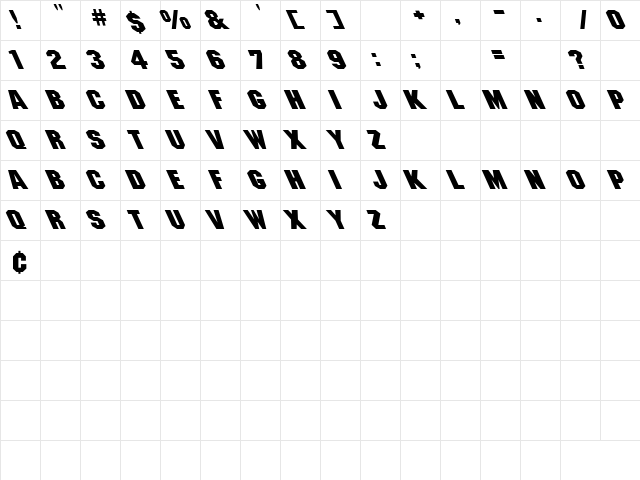
Machiavelli Bld Wd Lefty Regular
Design Context for Machiavelli Bld Wd Lefty Typeface
Machiavelli Bld Wd Lefty offers clean, dependable letterforms without strong stylistic allegiance, making it a practical choice for designers who need flexibility.